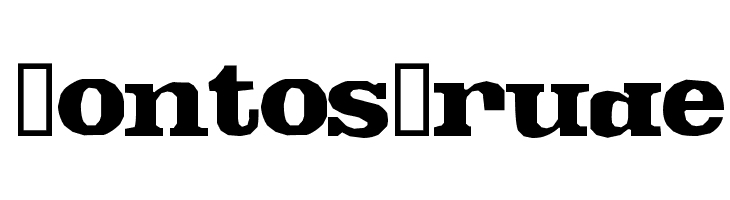
A decorative font with bold geometric shapes and intricate internal patterns.
A bold, decorative font with characters enclosed in star-adorned frames.
A decorative font with characters inside football shapes, ideal for sports themes.
A decorative, grunge-inspired font with a vintage and eclectic style.
A bold decorative font with intricate floral patterns in each character.
A bold, geometric font with a modern, industrial aesthetic.
A bold, textured font with a rugged, organic style.